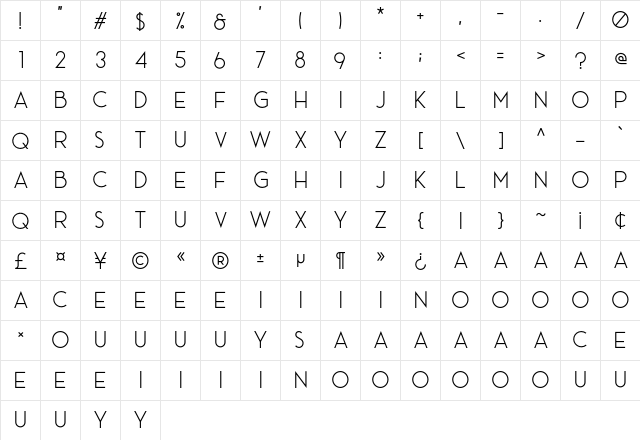
Ace Sans Demo
| Designer | Wahyu S Rahmawan |
Design Context for Ace Sans Typeface
Ace Sans is a composed and adaptable typeface that performs quietly and consistently across a wide range of design contexts.